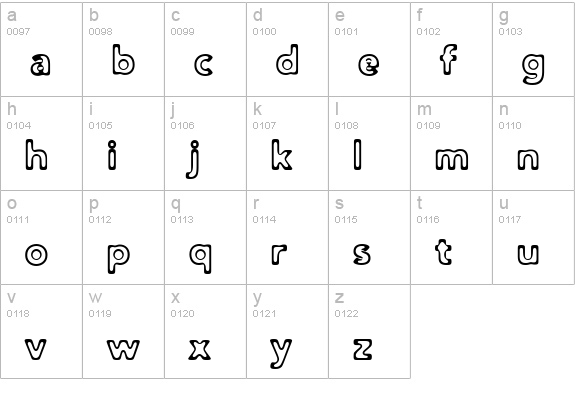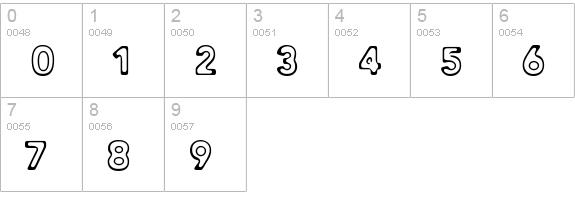
Distro Toast Font Details
Distro Toast is a modern and sleek font that effortlessly combines elegance with a touch of playfulness. With its smooth lines and balanced letterforms, this typeface is sure to make any design project stand out. Whether you're creating a logo, designing a website, or crafting eye-catching marketing materials, Distro Toast will add a touch of sophistication to your work. What sets Distro Toast apart is not just its impeccable design, but also its accessibility. This font is not only visually stunning, but it is also available for free download at FontsMarket.com. This means that you can use Distro Toast in your projects without any cost, making it a valuable asset for designers on a budget. The versatility of Distro Toast is another reason why it's a must-have font. It works seamlessly in a wide range of design applications, from print to digital, and everything in between. Its legibility ensures that your message is clear and easy to read, while its unique character adds a touch of personality to your designs. The clean and contemporary aesthetic of Distro Toast makes it a perfect choice for a variety of projects, including branding, packaging, invitations, and more. Whether you're going for a minimalist look or a bold statement, this font has the versatility to adapt to your creative vision. Don't miss out on the opportunity to enhance your designs with Distro Toast. Download it for free today at FontsMarket.com and elevate your design projects to new heights. With its stunning design and accessibility, Distro Toast is a font that you'll keep coming back to time and time again.